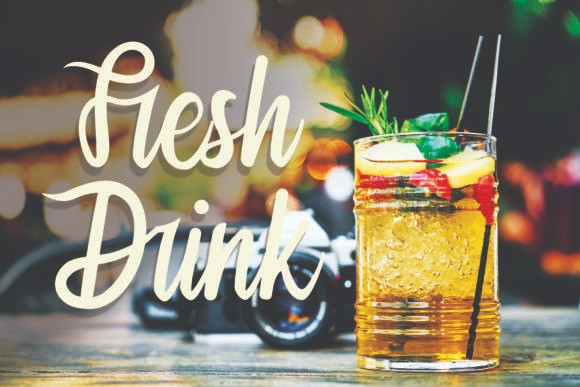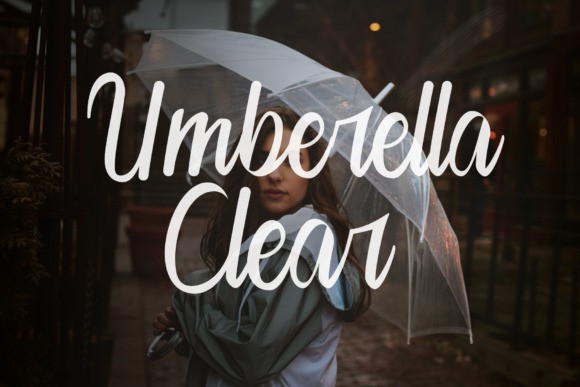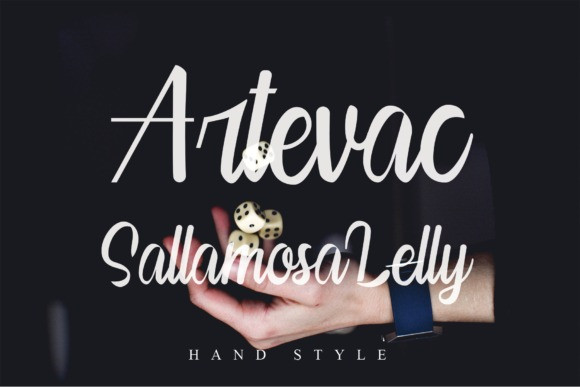
Fresh Drink Handwritten Font
Fresh Drink is a cute handwritten font. It maintains its classy calligraphic influences while feeling contemporary and fresh. Whether you’re looking for fonts for Instagram or calligraphy scripts for DIY projects, Fresh Drink will turn any creative idea into a true piece of art!